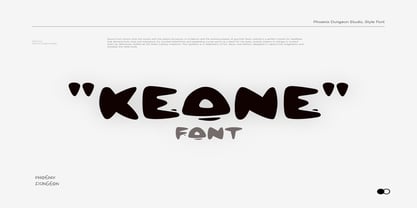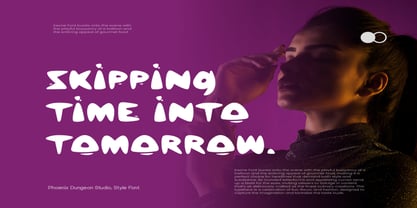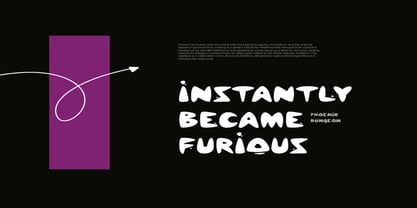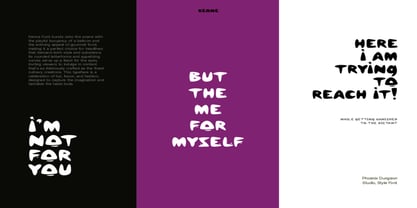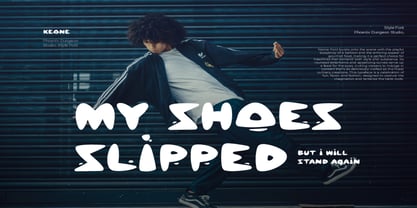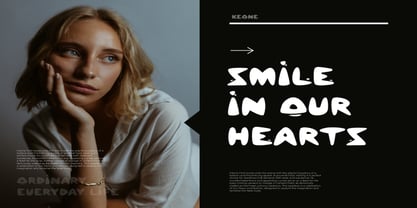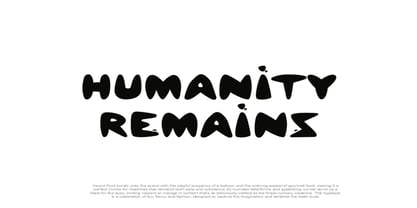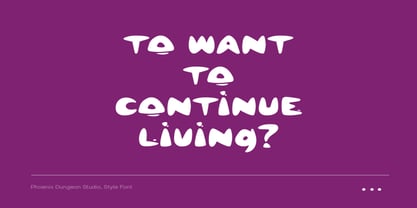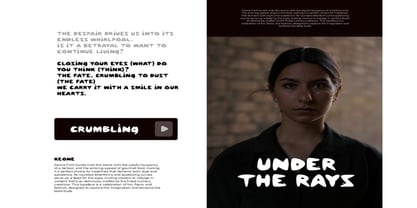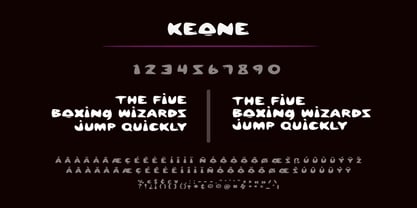
Keone
The Keone Font Family was designed by Alif Naufal Muzakki and published by Phoenix Group. Keone contains 1 styles. More about this family
Keone is a playful and bold display font with a bubbly personality and gourmet charm. Its rounded shapes and fun curves are perfect for projects that need a whimsical and eye-catching touch. Ideal for food branding, kids' content, packaging, and quirky headlines, Keone adds flavor and creativity to any design. This typeface is crafted to be both joyful and stylish, making your message pop with fun and flair.